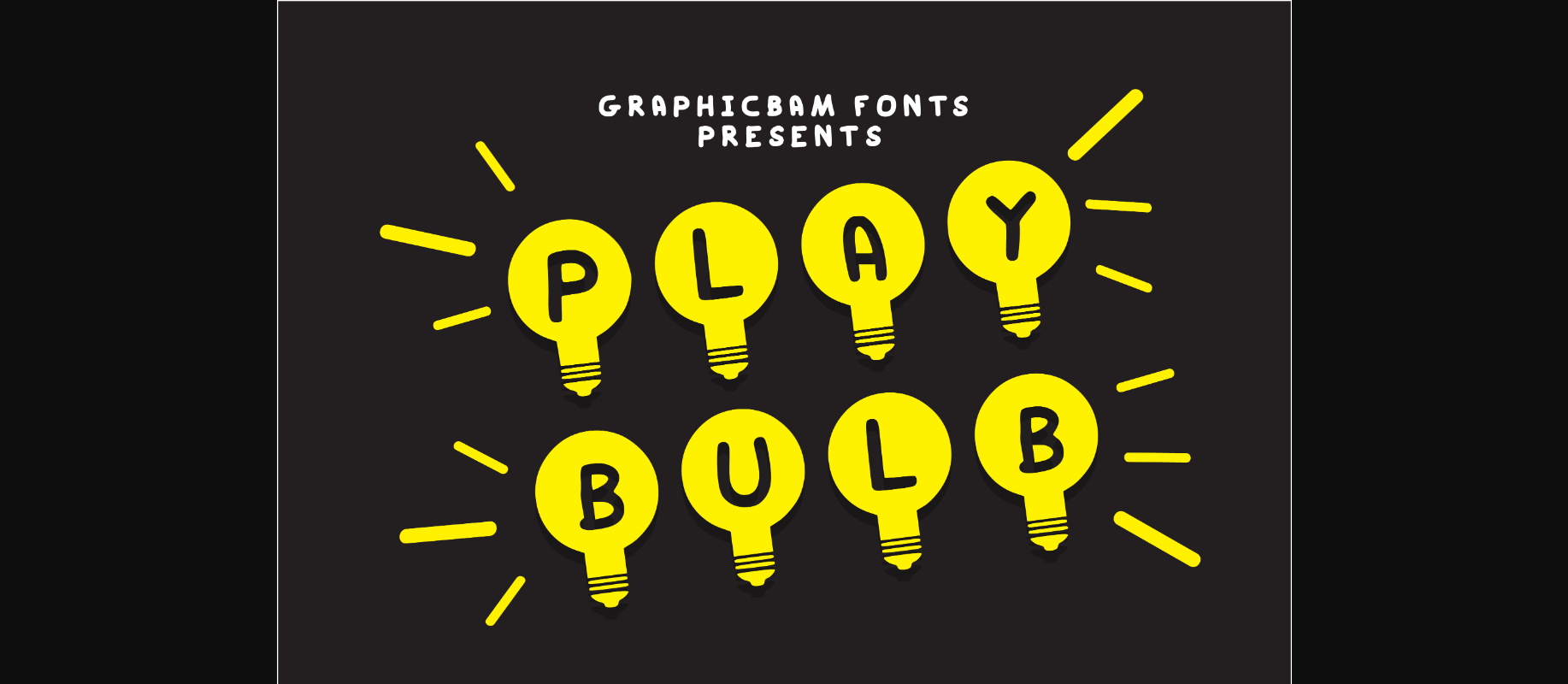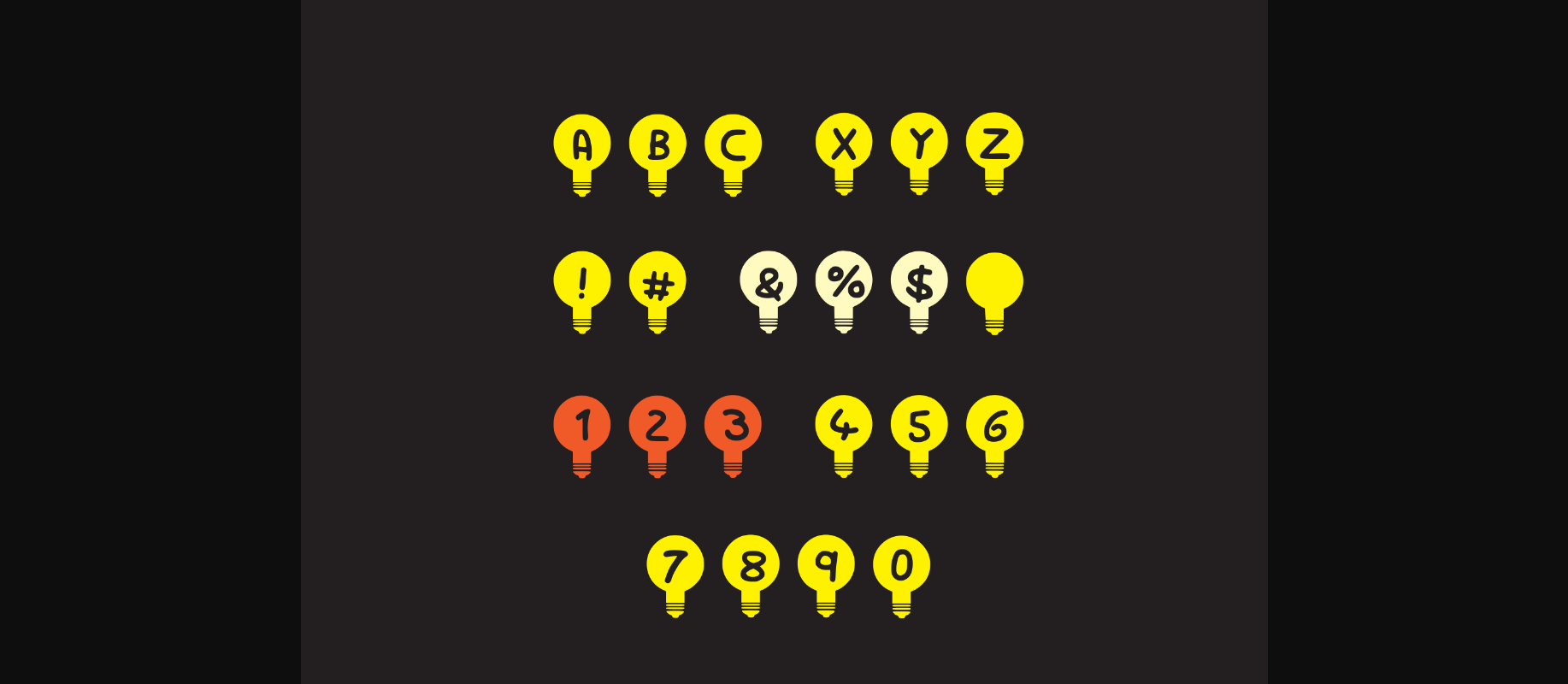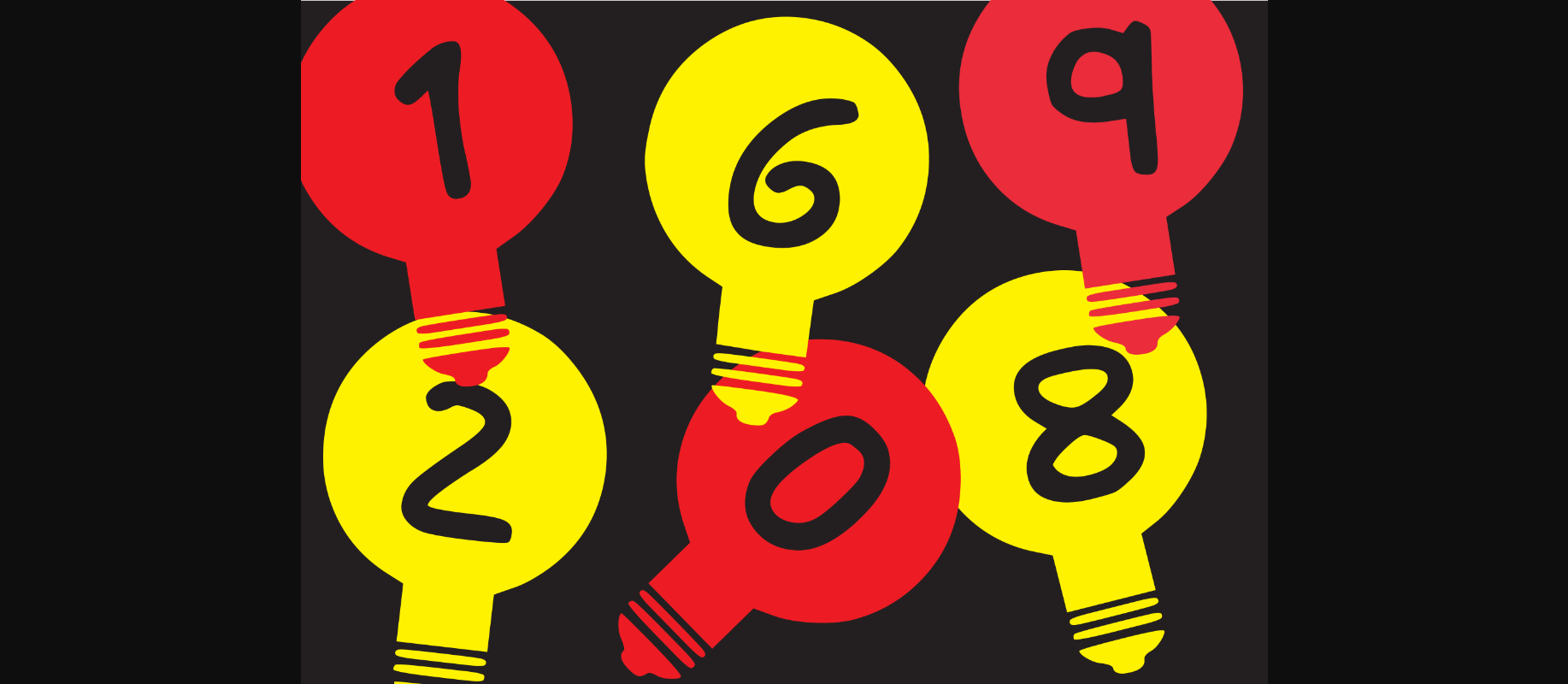
Play Bulb Font
About Play Bulb Font
Play Bulb is a fun decorative font with a light bulb theme. Add it to your most creative ideas and notice how it makes them come alive!